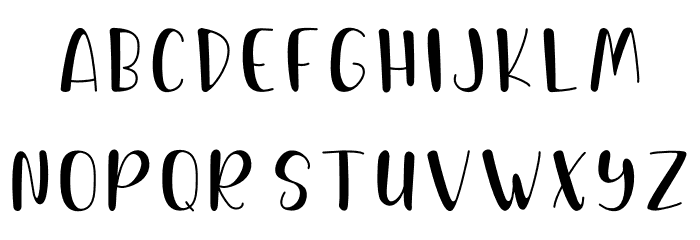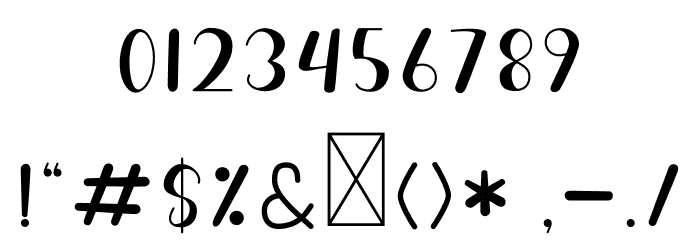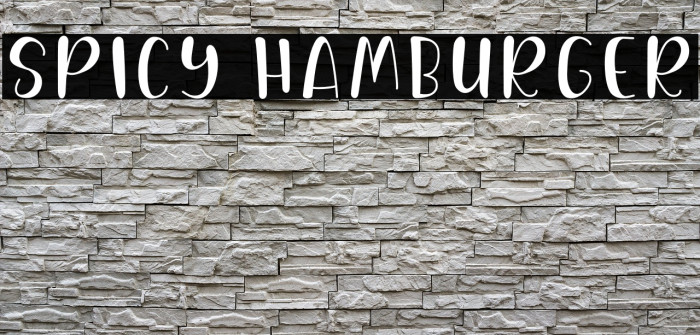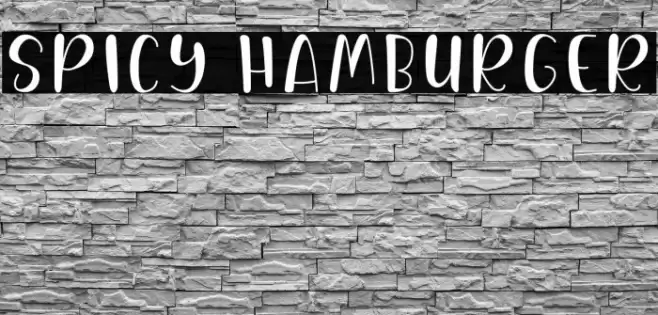
Spicy Hamburger Font
This font features a playful and whimsical style, characterized by its rounded and slightly irregular letterforms. The strokes vary in thickness, giving it a hand-drawn appearance that adds a personal touch to any design. The uppercase and lowercase letters maintain a consistent flow, with some letters exhibiting unique flourishes that enhance its charm. The numerals are bold and easy to read, complementing the overall aesthetic. Special characters are included, maintaining the same playful style, making this font versatile for various creative projects.
A playful, hand-drawn style font with rounded, irregular letterforms.
- Proposed Projects: Ideal for greeting cards, children's books, playful branding, and social media graphics.
- Overall Style: Playful